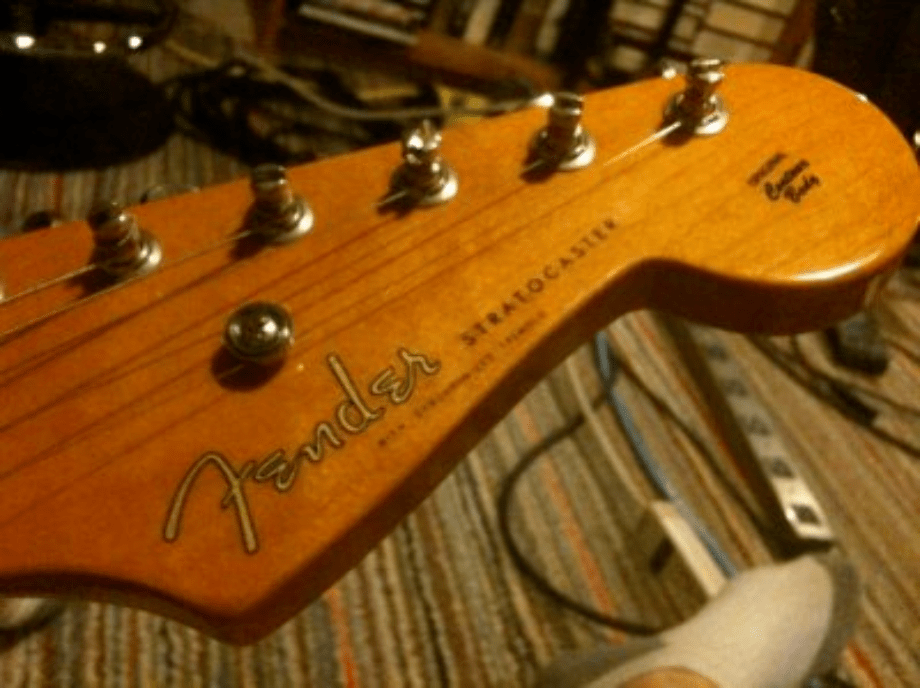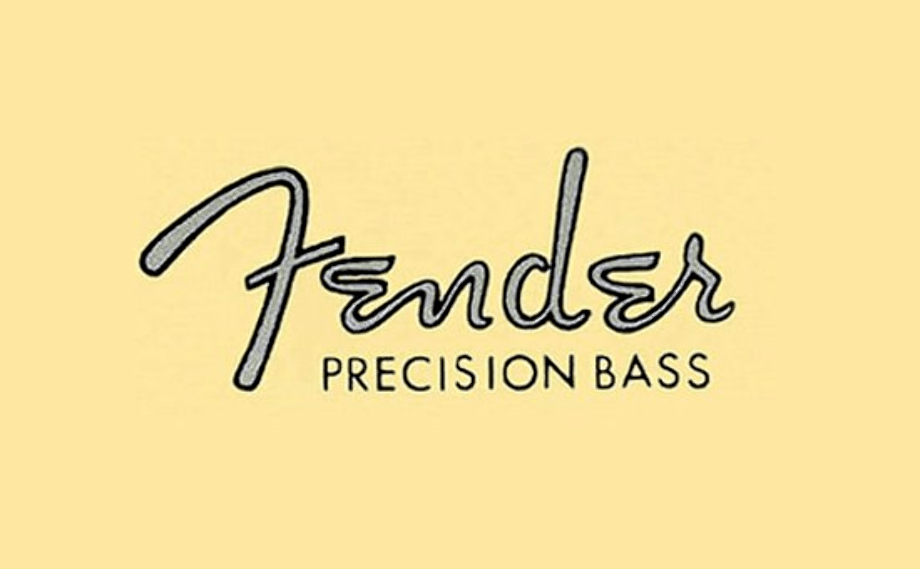
Fender Spaghetti Logo Font . The first stratocaster featured the thin original fender logo, usually called spaghetti logo, gold with a black trim, with the words stratocaster and with synchronized tremolo. Fender is a popular american musical instrument. Free download of strato font family with 2 styles. List other fonts in the comments and i'll add them here: Strato linked by bastien sozoo is a font based on the fender logo. No patent numbers until 1961. It is a free font. Very helpful to verify the logo on a stratocater is original and correct for the era of the body. Fender stratocaster headstock logos thru the years in pictures. Fender’s spaghetti logo was used throughout the 1950s and is so named for its thin, stylized script, which appears in silver lettering with a thin. The tab preserves the boldness of the fender brand by consistently showcasing the spaghetti mark within fender red.
It is a free font. No patent numbers until 1961. Fender is a popular american musical instrument. List other fonts in the comments and i'll add them here: The first stratocaster featured the thin original fender logo, usually called spaghetti logo, gold with a black trim, with the words stratocaster and with synchronized tremolo. Fender stratocaster headstock logos thru the years in pictures. Very helpful to verify the logo on a stratocater is original and correct for the era of the body. The tab preserves the boldness of the fender brand by consistently showcasing the spaghetti mark within fender red. Strato linked by bastien sozoo is a font based on the fender logo. Fender’s spaghetti logo was used throughout the 1950s and is so named for its thin, stylized script, which appears in silver lettering with a thin.
Fender Spaghetti Logo
Fender Spaghetti Logo Font It is a free font. Very helpful to verify the logo on a stratocater is original and correct for the era of the body. Strato linked by bastien sozoo is a font based on the fender logo. No patent numbers until 1961. Fender is a popular american musical instrument. Fender stratocaster headstock logos thru the years in pictures. Free download of strato font family with 2 styles. The tab preserves the boldness of the fender brand by consistently showcasing the spaghetti mark within fender red. It is a free font. The first stratocaster featured the thin original fender logo, usually called spaghetti logo, gold with a black trim, with the words stratocaster and with synchronized tremolo. List other fonts in the comments and i'll add them here: Fender’s spaghetti logo was used throughout the 1950s and is so named for its thin, stylized script, which appears in silver lettering with a thin.
Fender Logos Fender Spaghetti Logo Font No patent numbers until 1961. Fender is a popular american musical instrument. Fender stratocaster headstock logos thru the years in pictures. List other fonts in the comments and i'll add them here: It is a free font. Free download of strato font family with 2 styles. Very helpful to verify the logo on a stratocater is original and correct for. Fender Spaghetti Logo Font.
Fender Spaghetti Logo Sticker Guitar Center Fender Spaghetti Logo Font Fender stratocaster headstock logos thru the years in pictures. The first stratocaster featured the thin original fender logo, usually called spaghetti logo, gold with a black trim, with the words stratocaster and with synchronized tremolo. It is a free font. Very helpful to verify the logo on a stratocater is original and correct for the era of the body. Fender. Fender Spaghetti Logo Font.
Fender® Spaghetti Logo TShirt, Butterscotch Blonde Lifestyle Fender Spaghetti Logo Font Free download of strato font family with 2 styles. List other fonts in the comments and i'll add them here: Fender’s spaghetti logo was used throughout the 1950s and is so named for its thin, stylized script, which appears in silver lettering with a thin. No patent numbers until 1961. The tab preserves the boldness of the fender brand by. Fender Spaghetti Logo Font.
fender Flickr Fender Spaghetti Logo Font The tab preserves the boldness of the fender brand by consistently showcasing the spaghetti mark within fender red. Strato linked by bastien sozoo is a font based on the fender logo. Free download of strato font family with 2 styles. The first stratocaster featured the thin original fender logo, usually called spaghetti logo, gold with a black trim, with the. Fender Spaghetti Logo Font.
Fender® Foil Spaghetti Logo TShirt Curated Grids Fender Spaghetti Logo Font Fender stratocaster headstock logos thru the years in pictures. Strato linked by bastien sozoo is a font based on the fender logo. The tab preserves the boldness of the fender brand by consistently showcasing the spaghetti mark within fender red. It is a free font. Fender is a popular american musical instrument. Very helpful to verify the logo on a. Fender Spaghetti Logo Font.
Fender Spaghetti Logo Font It is a free font. Fender’s spaghetti logo was used throughout the 1950s and is so named for its thin, stylized script, which appears in silver lettering with a thin. Strato linked by bastien sozoo is a font based on the fender logo. The tab preserves the boldness of the fender brand by consistently showcasing the spaghetti mark within fender. Fender Spaghetti Logo Font.
Fender Guitar Logo Sticker Grosstrust Fender Spaghetti Logo Font Fender stratocaster headstock logos thru the years in pictures. Very helpful to verify the logo on a stratocater is original and correct for the era of the body. The first stratocaster featured the thin original fender logo, usually called spaghetti logo, gold with a black trim, with the words stratocaster and with synchronized tremolo. It is a free font. Free. Fender Spaghetti Logo Font.
Download High Quality fender logo spaghetti Transparent PNG Images Fender Spaghetti Logo Font The first stratocaster featured the thin original fender logo, usually called spaghetti logo, gold with a black trim, with the words stratocaster and with synchronized tremolo. List other fonts in the comments and i'll add them here: It is a free font. The tab preserves the boldness of the fender brand by consistently showcasing the spaghetti mark within fender red.. Fender Spaghetti Logo Font.
Fender Logo and symbol, meaning, history, PNG, brand Fender Spaghetti Logo Font Fender’s spaghetti logo was used throughout the 1950s and is so named for its thin, stylized script, which appears in silver lettering with a thin. Strato linked by bastien sozoo is a font based on the fender logo. Fender stratocaster headstock logos thru the years in pictures. Very helpful to verify the logo on a stratocater is original and correct. Fender Spaghetti Logo Font.